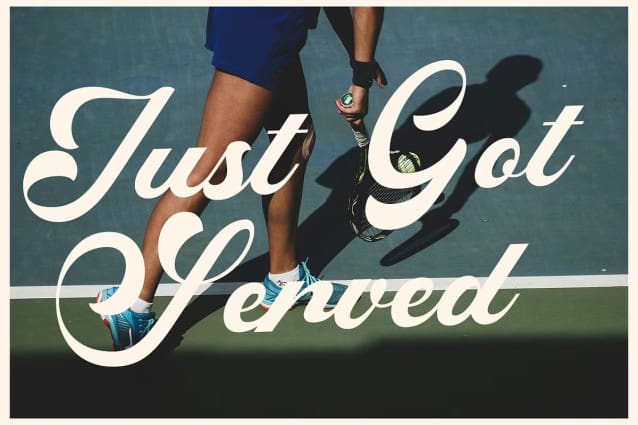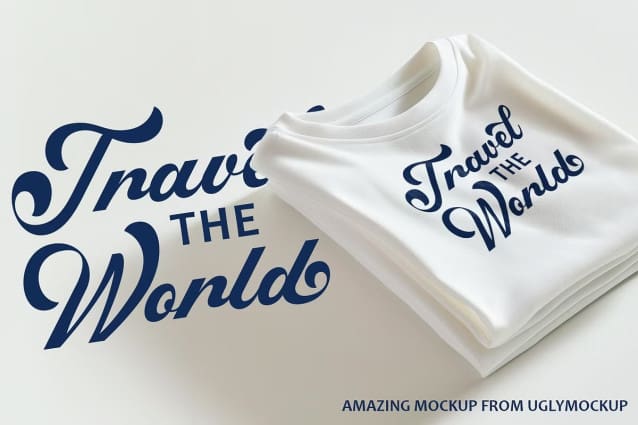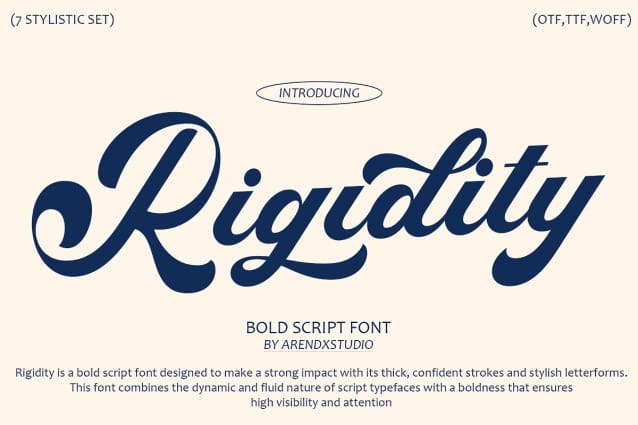
Rigidity Font
Rigidity Font is a bold script font that brings together the elegance of script lettering with the impactful presence of bold typography. Its thick strokes, fluid letterforms, and versatile applications make it an excellent choice for a wide range of design projects. Whether used for headlines, branding, or creative typography, “Rigidity Font” ensures your text is not only readable but also memorable and visually appealing. By incorporating “Rigidity” into your designs, you can achieve a strong, stylish, and professional look that stands out.